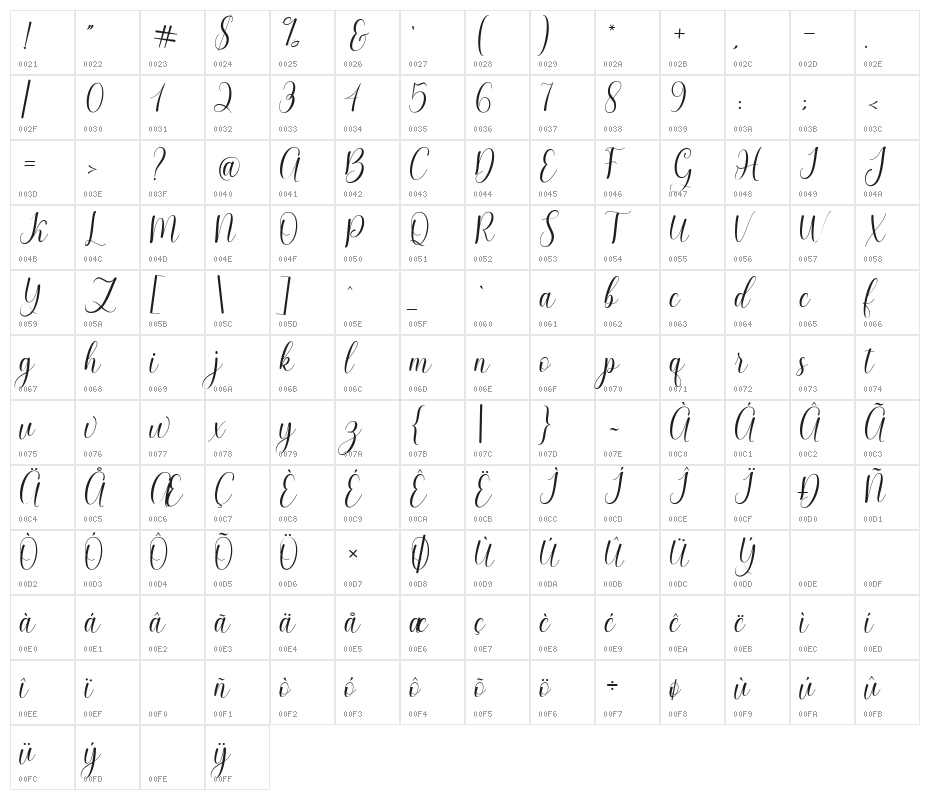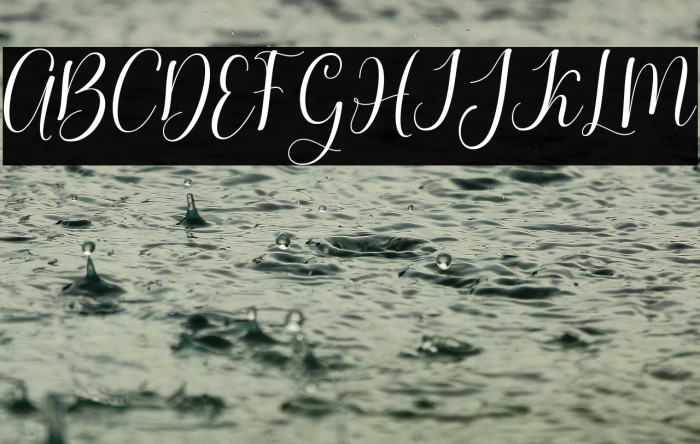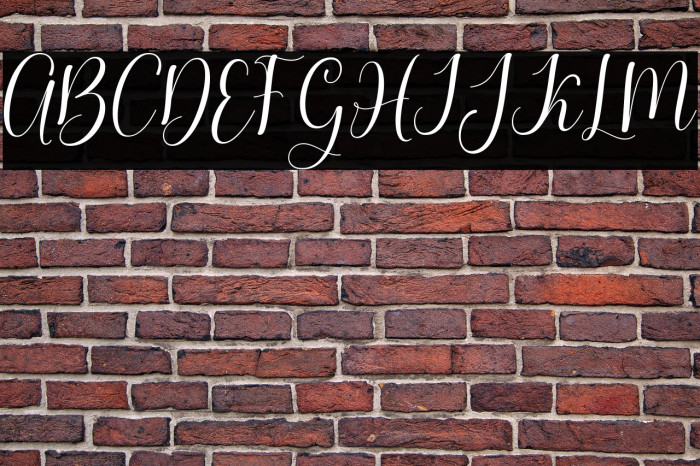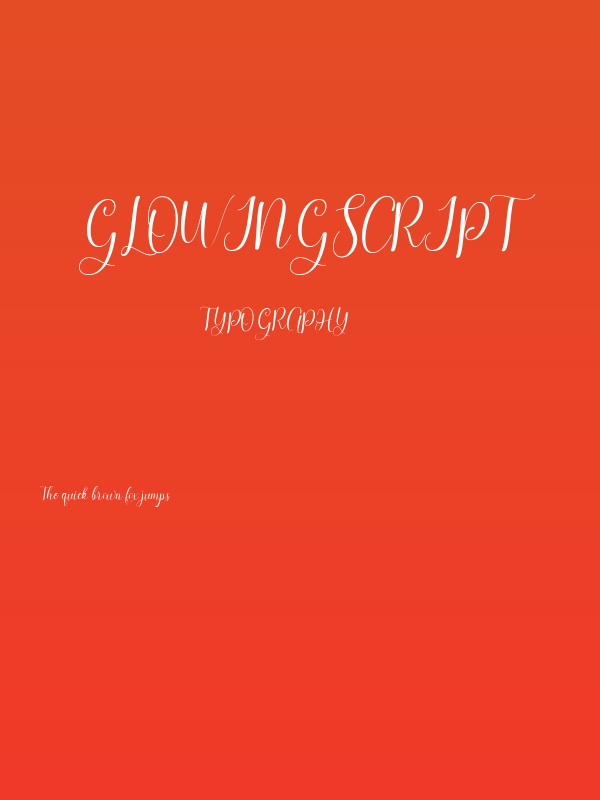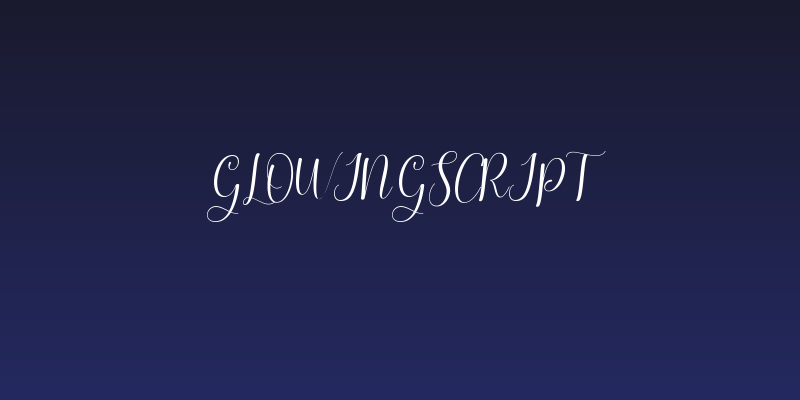
glowingscript Font
glowingscript Description
This elegant script font features flowing, interconnected letters with a graceful and sophisticated appearance. The uppercase letters are adorned with delicate swashes, adding a touch of flair and movement. The lowercase letters maintain a consistent rhythm, enhancing readability while preserving the font's decorative nature. The numerals are stylishly curved, complementing the overall aesthetic. Special characters are thoughtfully designed, integrating seamlessly with the alphabet. This font exudes a sense of luxury and refinement, making it ideal for projects that require a touch of elegance.
| Overall Style | Elegant |
| Use Case | Logos, Invitations, Branding |
| Proposed Projects | Wedding invitations, luxury branding, elegant stationery, and high-end product packaging. |